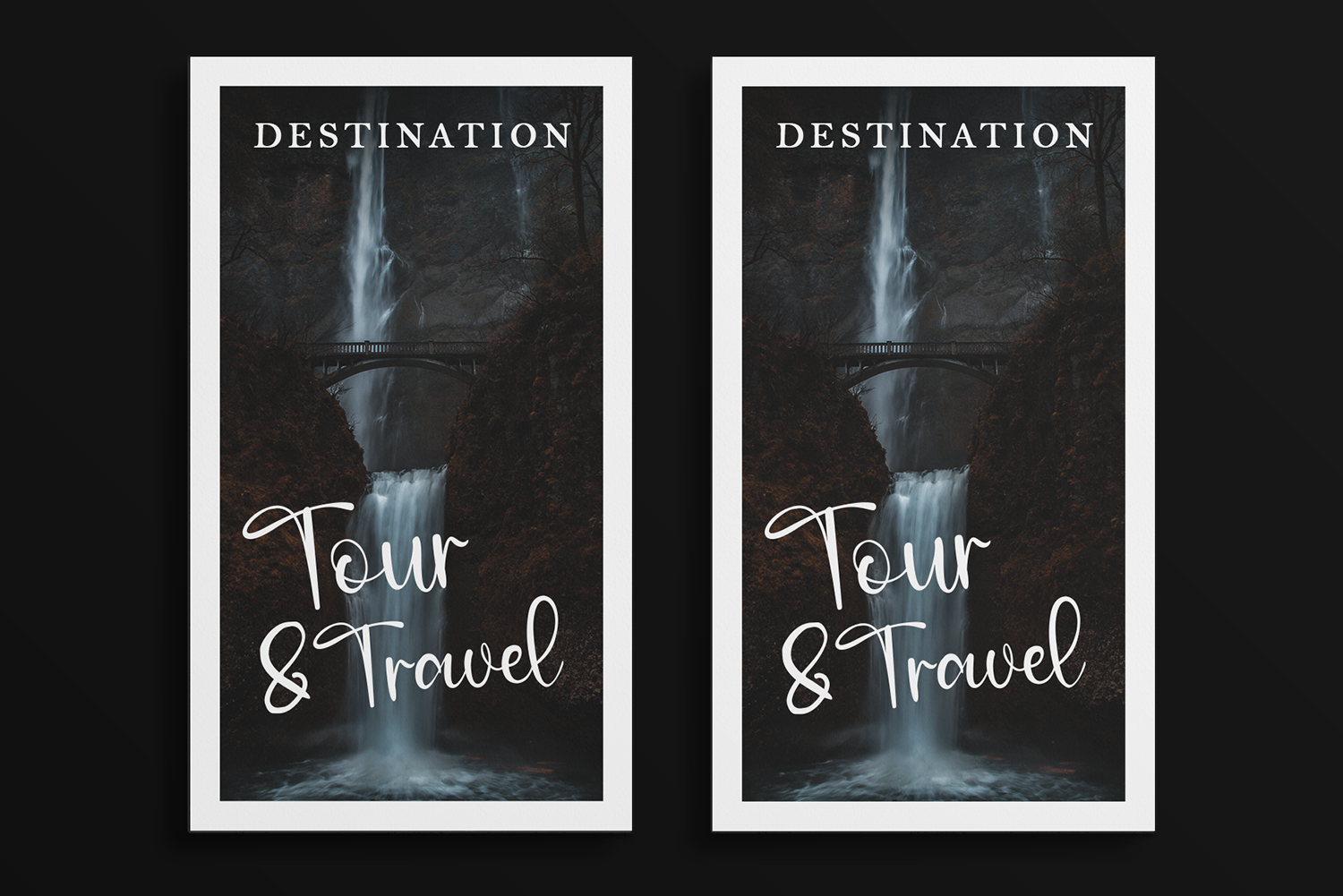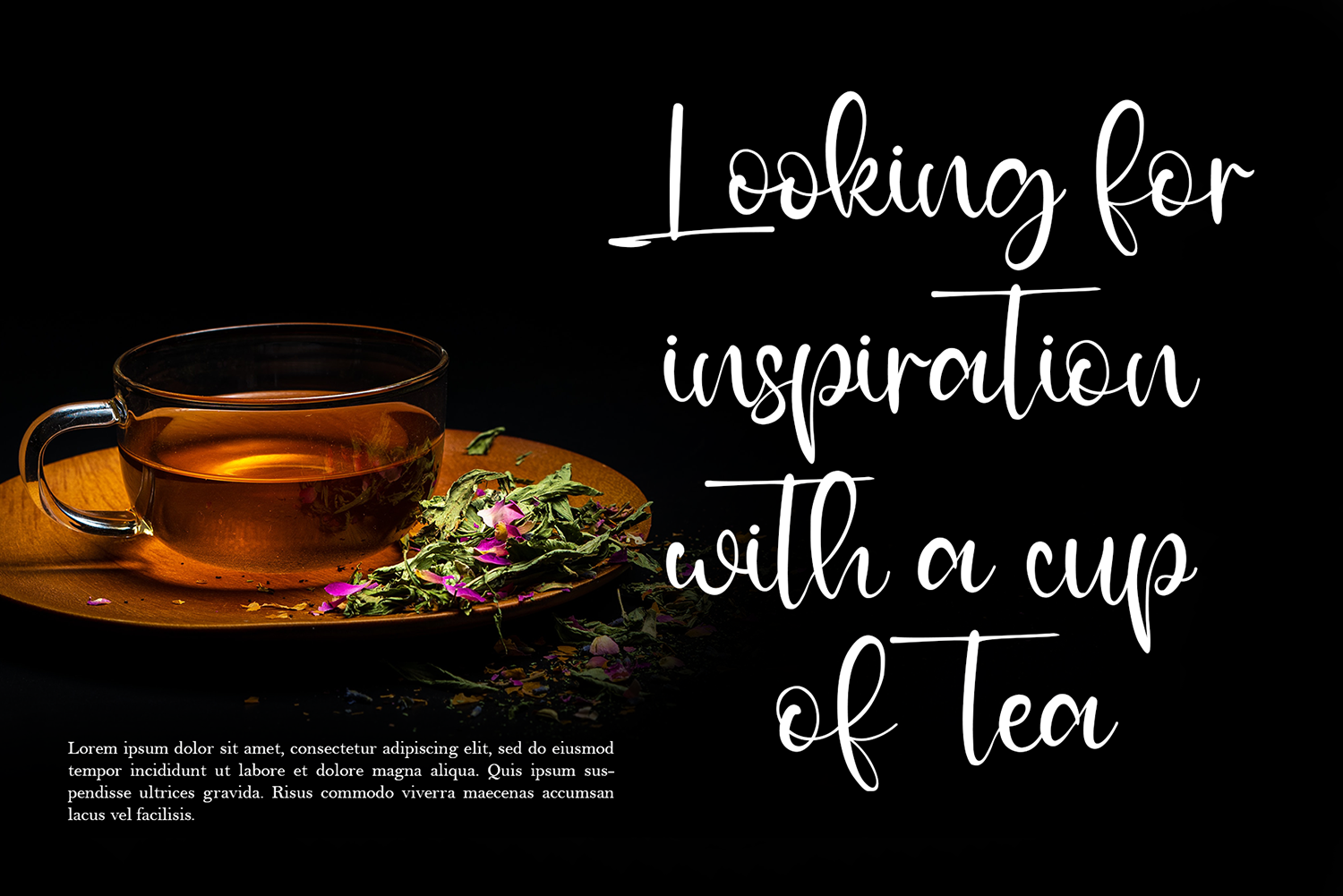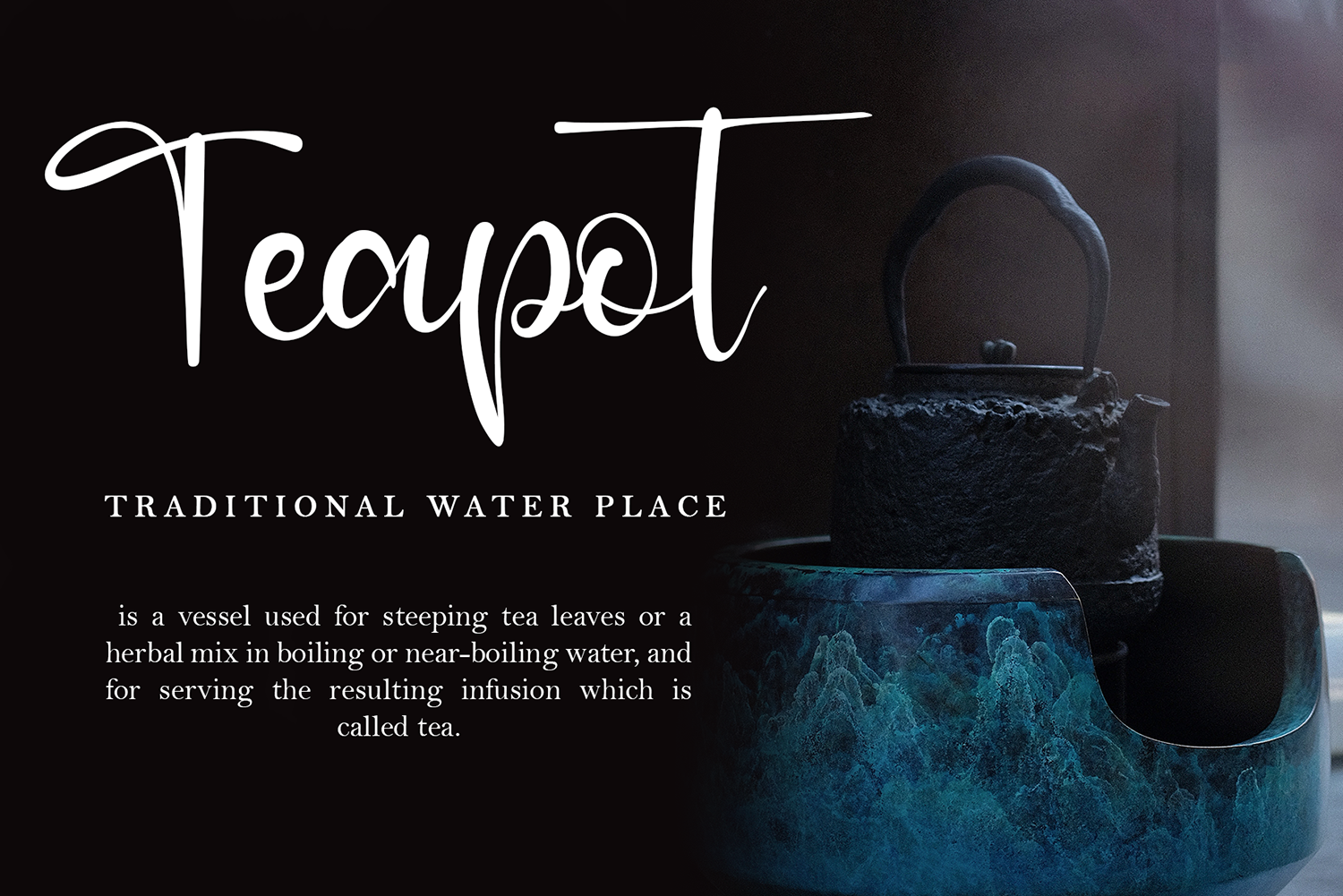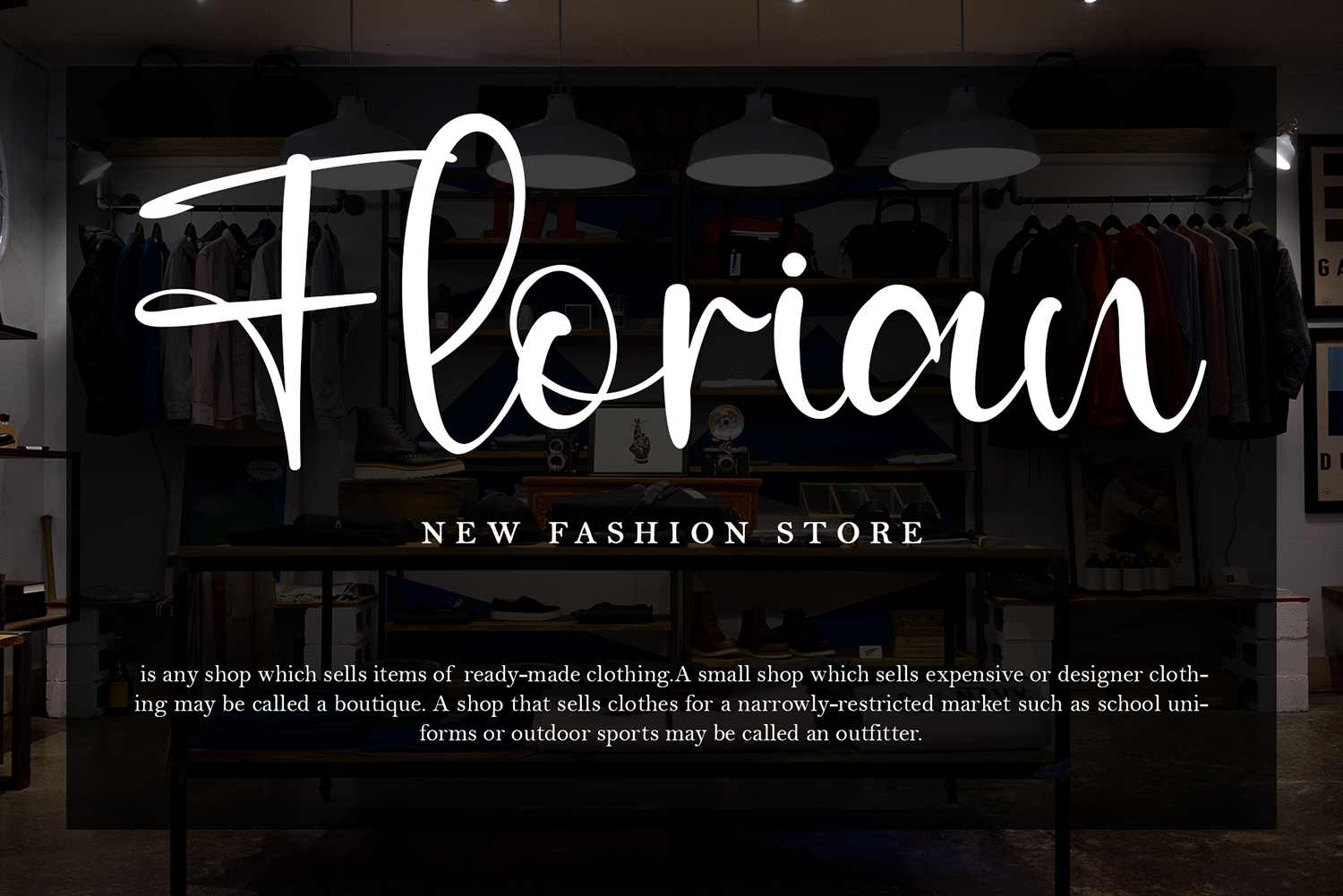
Brilliant Free Font
Brilliant Free Font is a modern and playful handwritten script font. It’s great for crafters and designers. It looks stunning on wedding invitations, thank you cards, quotes, greeting cards, logos, business cards and every other design which needs a handwritten touch. This free typeface was designed by a talentedΒ Kong Font. If you like it don’t forget to check out the full version.